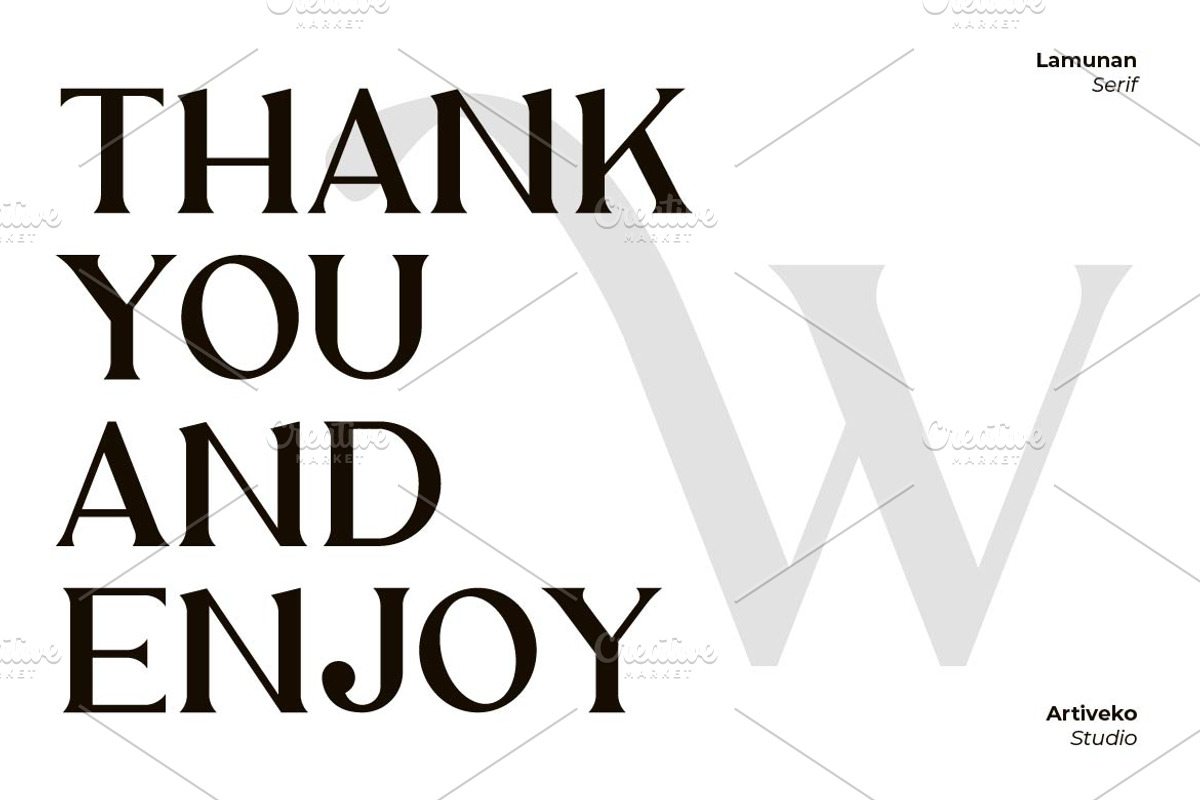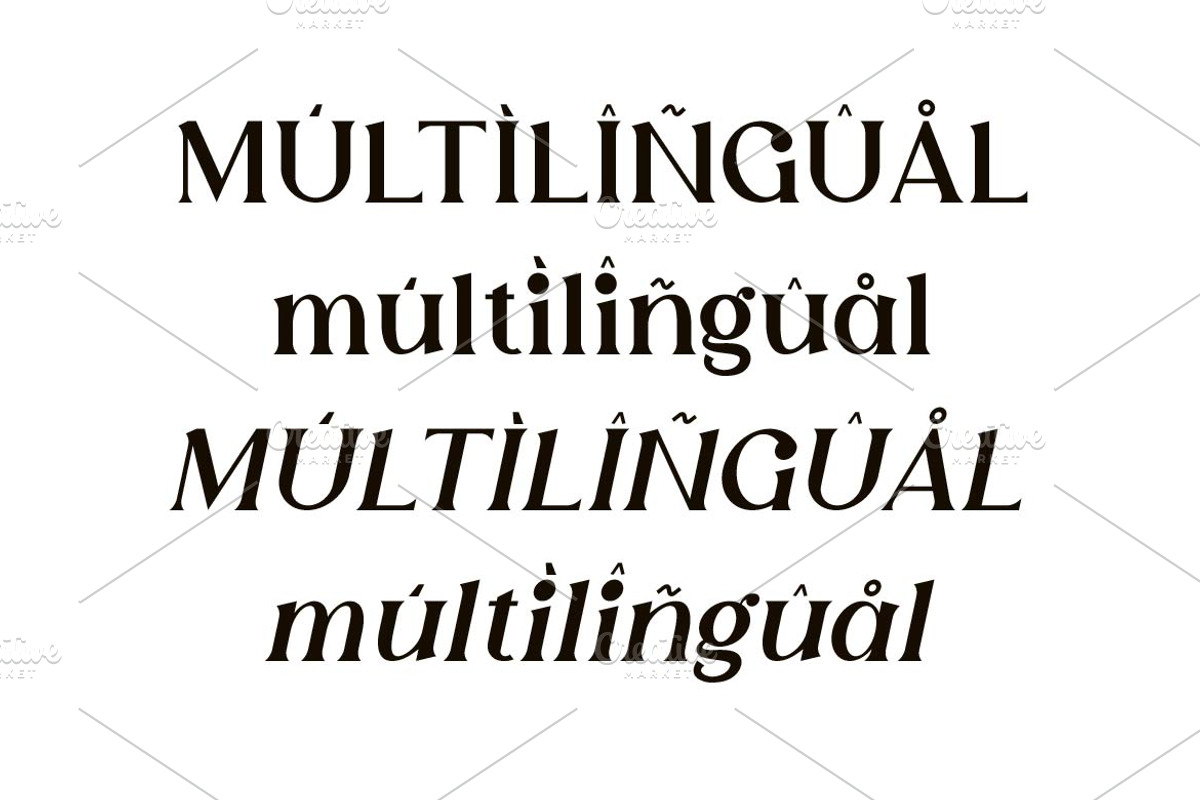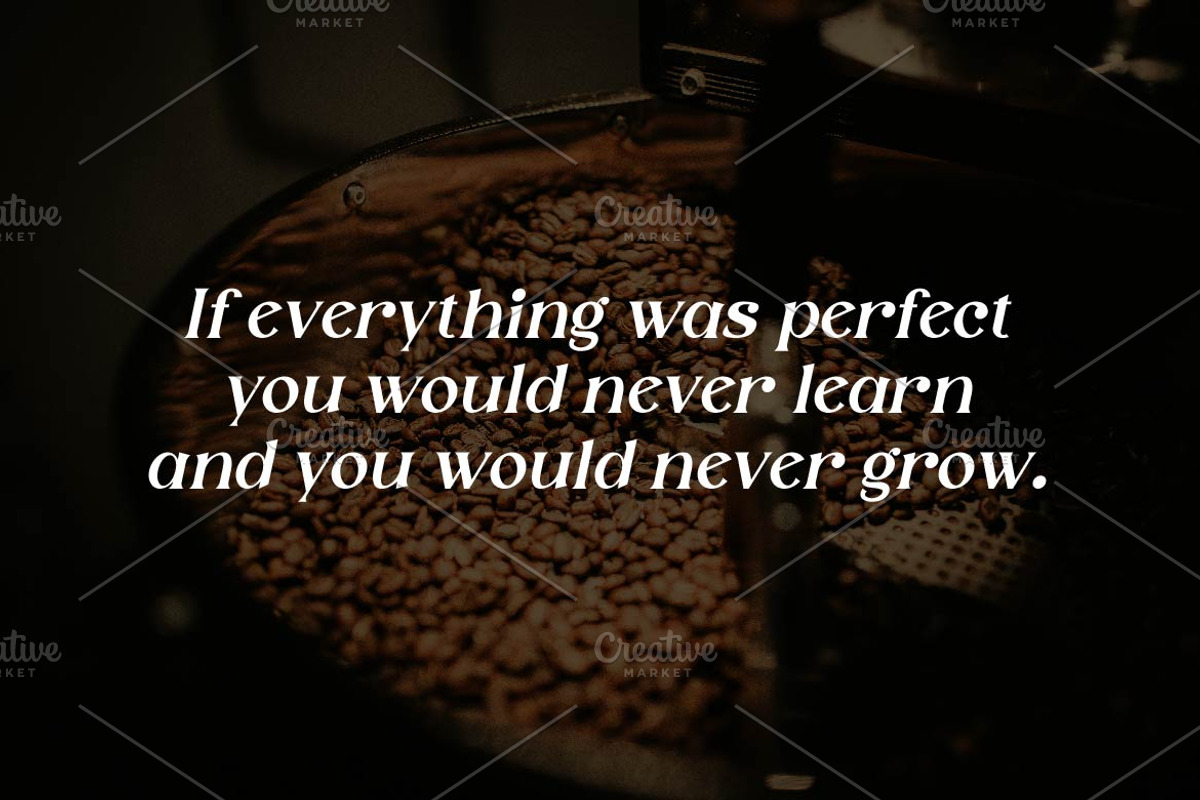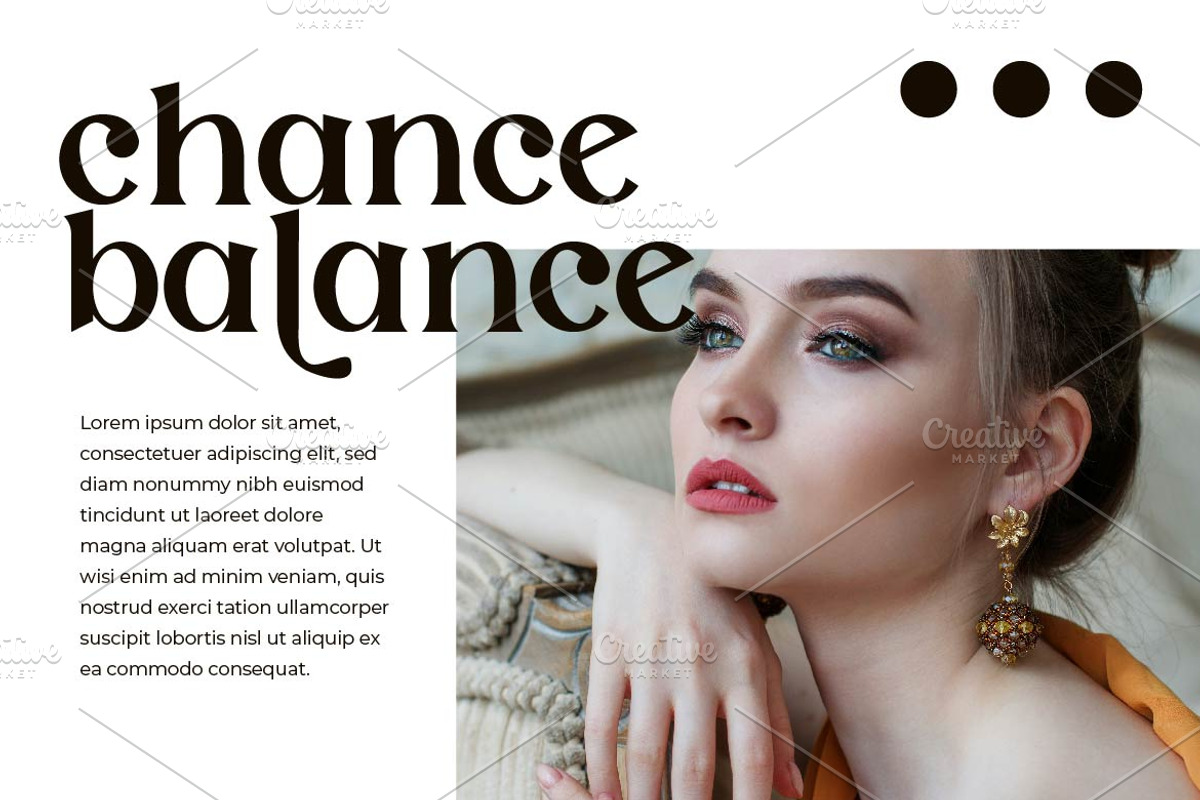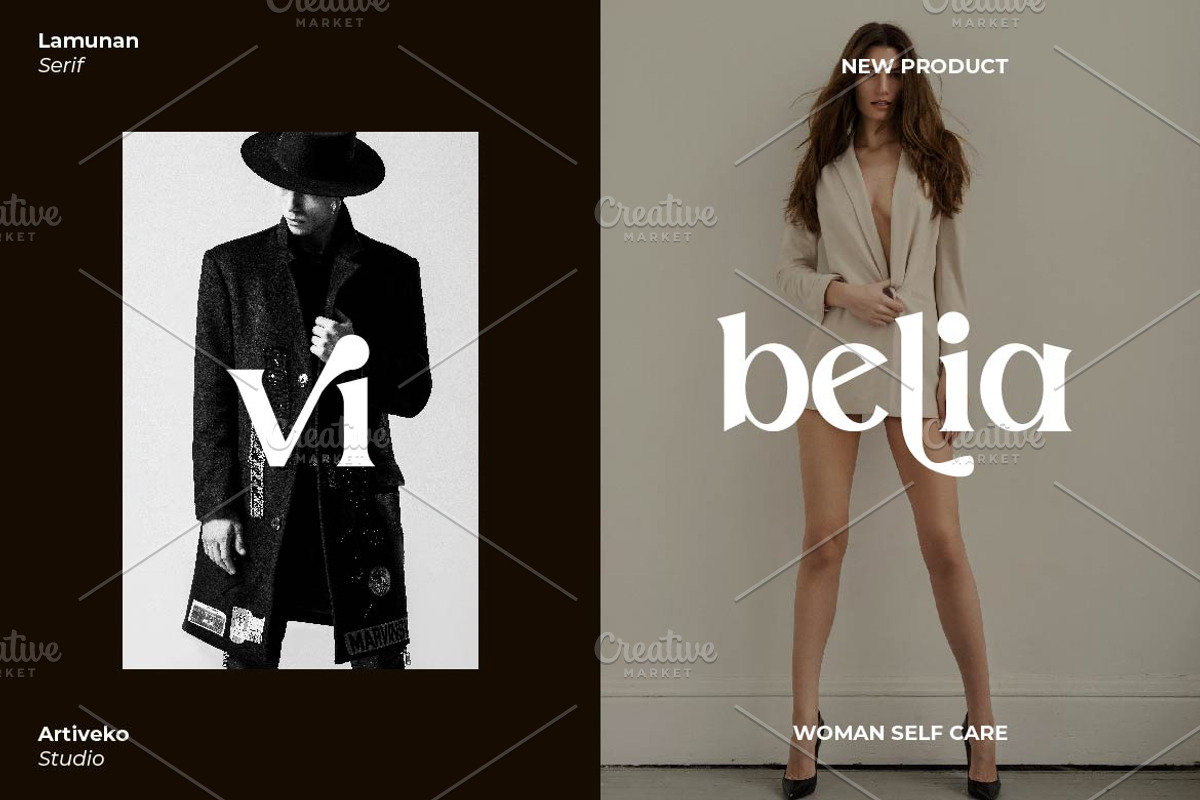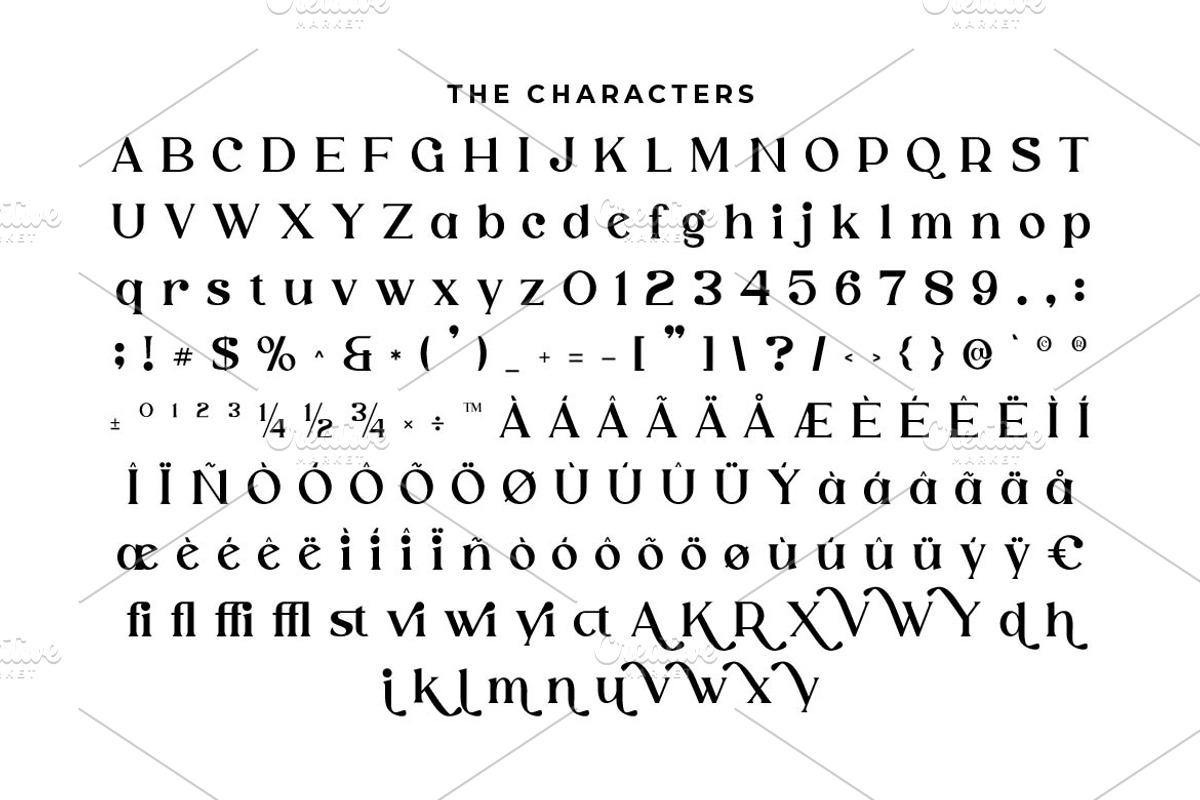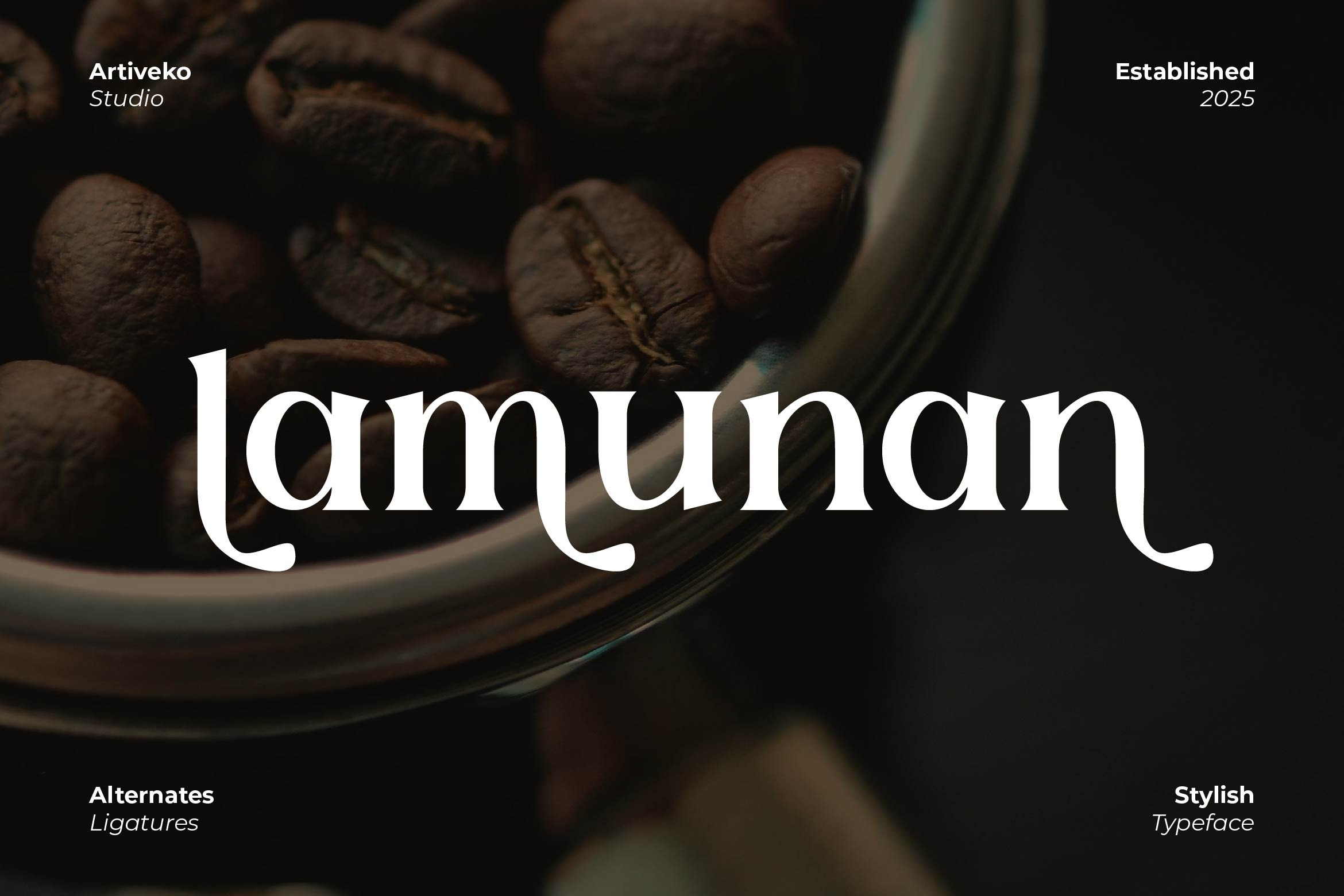
Lamunan Elegant Serif Font
Lamunan is a premium luxury serif font designed with elegance and sophistication in mind. Its refined letterforms, graceful curves, and timeless aesthetics make it perfect for high-end branding, editorial design, wedding invitations, and luxury packaging. With multilingual support, ligatures, and alternates, Lamunan exudes class and exclusivity, making it an ideal choice for projects that demand a touch of prestige and refinement.